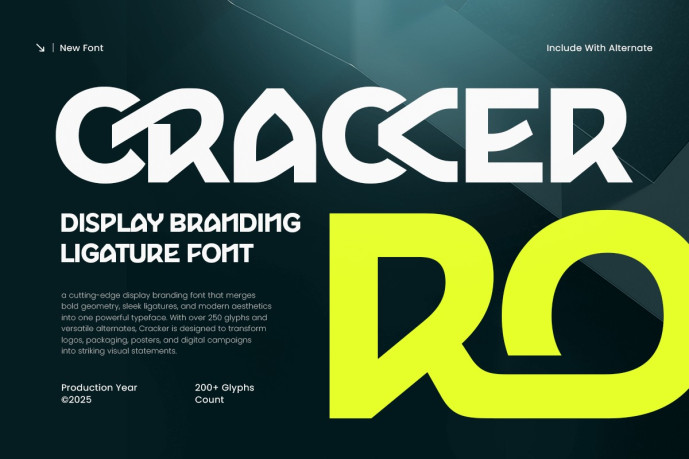
Cracker Font
Cracker Font is a sleek and innovative tech font featuring modern ligatures and a futuristic geometric style. Designed for brands seeking a clean, high-tech identity, Cracker offers precise accuracy and bold character forms, ideal for logos, app interfaces, product branding, dashboards, UI/UX layouts, and enterprise tech visuals.
Its advanced letterforms and stylistic ligatures create a unique visual rhythm, allowing your brand to stand out with a professional and cutting-edge look. Cracker combines minimalism with a strong digital aesthetic, making it the ideal choice for startups, software publishers, IT product companies, and avant-garde creative projects.